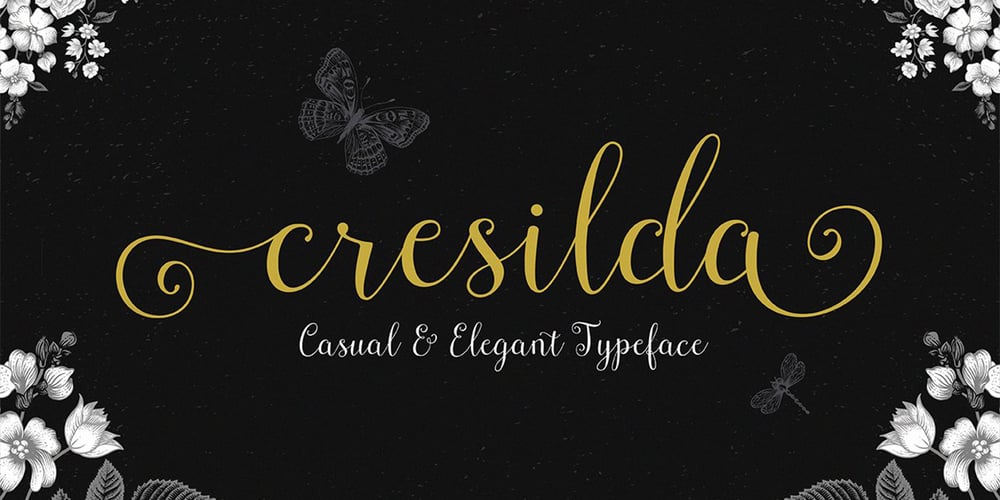
Cresilda Script Font Family was designed by Seniors Studio and published by Seniors Studio. Cresilda Script contains 1 styles and family package options. Cresilda Script is a fluid handwritten calligraphy fonts, combining calligraphy typefaces with a free flowing and moving baseline. It has a casual, yet elegant touch. features alternate characters. including initial and terminal letters, alternates, ligatures and multiple language support.?Can be used for various purposes.such as headings, signature, logos, wedding invitation, t-shirt, letterhead, signage, lable, news, posters, badges etc. To enable the OpenType Stylistic alternates, you need a program that supports OpenType features such as Adobe Illustrator CS, Adobe Indesign & CorelDraw X6-X7.